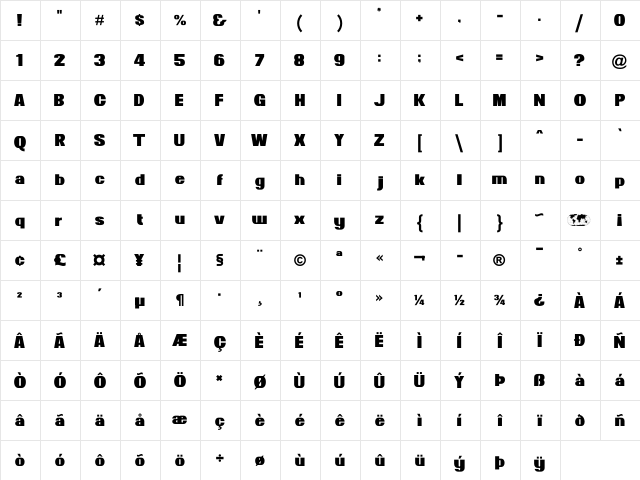
News of the World Regular
| Foundry | The Monotype Corporation |
| Designer | Geoffrey Lee |
Design Context for News of the World Typeface
News of the World takes a measured approach to typography — its balanced proportions and neutral character make it a reliable workhorse for both digital and print work.